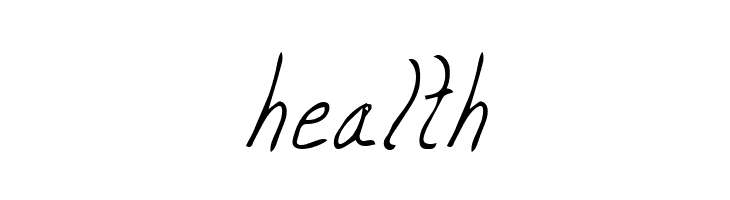
( Fonts by www.kimberlygeswein.com - Kimberly Geswein )
A playful, bold outline font with rounded edges and a bubble-like appearance.
A rounded, eroded font with a vintage, weathered texture.
( Fonts by Pi Luo Chiu - thisisallenchiu.tumblr.com )
A chaotic, hand-drawn font with irregular, jagged letterforms.
A bold, modern-vintage font with sharp serifs and high contrast.
( Fonts by dartcanada.tripod.com - Darren Rigby )
A modern, geometric sans-serif font with uniform stroke width and clear readability.
Designers love KG Red Hands Outline, Rounded Eroded, Alley Cat, K.O. Activista* Bold and Mickey Regular for their clean forms and broad use cases — from brand identities to landing pages and posters.